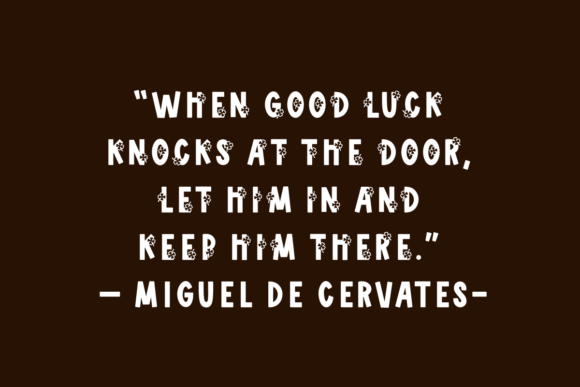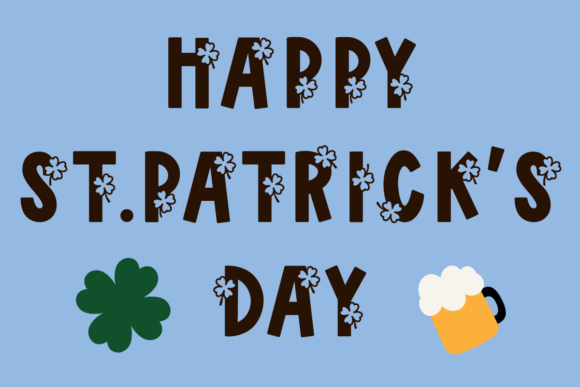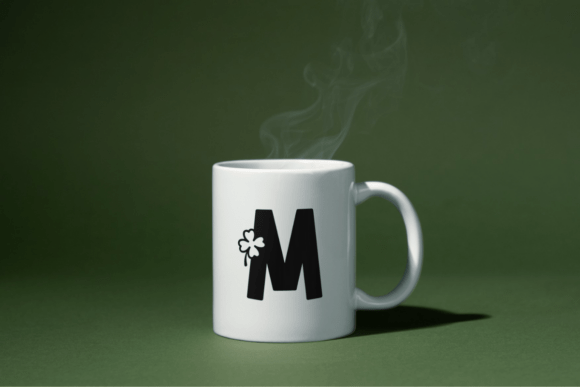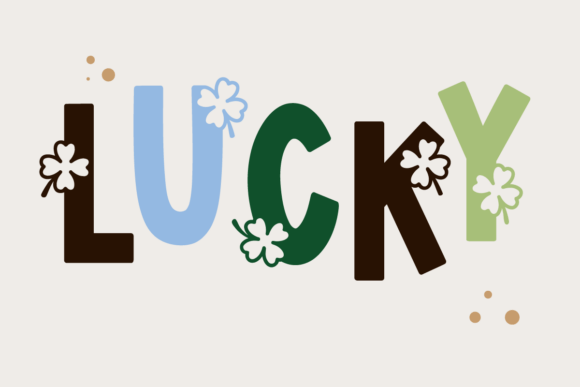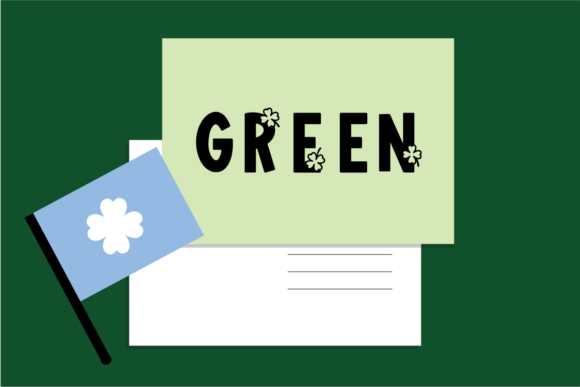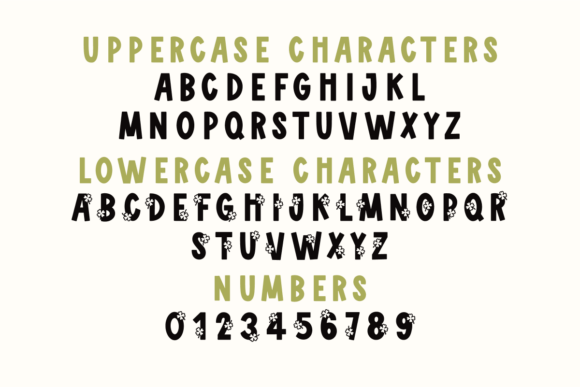
Clover Font: The Perfect Playful Decorative Font for Spring and St. Patrick’s Day Projects
Are you looking for a fun and playful font to add a touch of whimsy to your designs? Look no further than the Clover Font! This delightful decorative font is perfect for Spring and St. Patrick’s Day projects, and its versatility makes it ideal for a wide range of applications.
What is Clover Font?
Clover Font is a playful decorative font featuring adorable clover leaves. Its unique design makes it an excellent choice for adding a touch of personality to your projects. Whether you’re working on a design for a shirt, invitation card, mug, sticker, or any other project, Clover Font is sure to bring a smile to your audience’s faces.
Perfect for Spring and St. Patrick’s Day Projects
As the weather starts to warm up and flowers begin to bloom, Spring is the perfect time to add some fresh and playful designs to your projects. Clover Font is an excellent choice for any Spring-themed project, from garden party invitations to Easter egg designs. And, of course, its clover leaves make it a natural fit for St. Patrick’s Day projects, from shamrock-themed posters to “Luck of the Irish” greeting cards.
One of the best things about Clover Font is its versatility. Here are just a few ideas for projects where you can use this delightful font:
- Shirts and apparel: Add a playful touch to your t-shirt designs, hoodies, and other apparel with Clover Font.
- Invitation cards: Create adorable invitations for baby showers, bridal showers, and other celebrations.
- Mugs and ceramics: Add a whimsical touch to your mug designs, plates, and other ceramics.
- Stickers and decals: Use Clover Font to create fun and playful stickers and decals for laptops, water bottles, and more.
- Posters and prints: Create eye-catching posters and prints for Spring and St. Patrick’s Day-themed events.
- Logos and branding: Use Clover Font to create a unique and memorable logo for your business or brand.
- Greeting cards: Create adorable greeting cards for Spring and St. Patrick’s Day.
- Packaging: Add a playful touch to your product packaging with Clover Font.
- Illustrations: Use Clover Font to decorate your illustrations and add a touch of whimsy.
Why Choose Clover Font?
So why choose Clover Font for your next project? Here are just a few reasons:
- Unique and playful design: Clover Font is sure to stand out in a crowd and add a touch of personality to your designs.
- Versatile: Clover Font can be used for a wide range of projects, from apparel to packaging.
- High-quality: Clover Font is a high-quality font that will look great in any design.
Tips for Using Clover Font
Here are a few tips for getting the most out of Clover Font:
- Experiment with different colors: Clover Font looks great in a variety of colors, from bright and bold to pastel and soft.
- Pair with other fonts: Try pairing Clover Font with other fonts to create a unique and interesting design.
- Use in combination with images: Clover Font looks great in combination with images, such as illustrations or photographs.
- Keep it simple: Don’t be afraid to keep your design simple and let Clover Font be the star of the show.
Clover Font is a playful and decorative font that is perfect for Spring and St. Patrick’s Day projects. Its versatility and unique design make it an excellent choice for a wide range of applications, from apparel to packaging. Whether you’re a designer or crafter, Clover Font is sure to bring a touch of whimsy and personality to your designs. So why not give it a try and see what amazing projects you can create?